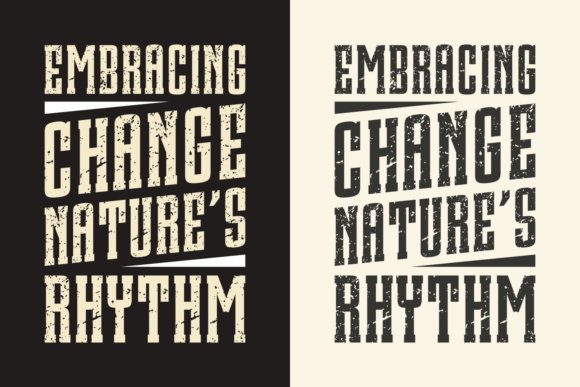
Senior College Vintage Font
Introducing “Senior College Vintage,” a classic slab serif font steeped in authenticity and vintage charm. This font exudes a rich, old-world style, bringing along with it whispers of yesteryears. Its thick and grunge textures lend an element of depth and character, while its clean accents provide a crisp readability. Perfectly crafted for apparel, this versatile piece of typographic art also doubles up as an ideal choice for book covers, branding, greeting cards, or even catchy logotypes. Add a dash of personality to your magazines, packaging designs, quotes, and trendy seasonal themes using “Senior College Vintage.” Finely tailored to convey a timeless appeal, it also comes with multilingual support, widening its universal appeal. Senior College Vintage lets you make the most quintessential statement in a truly fashionable way.